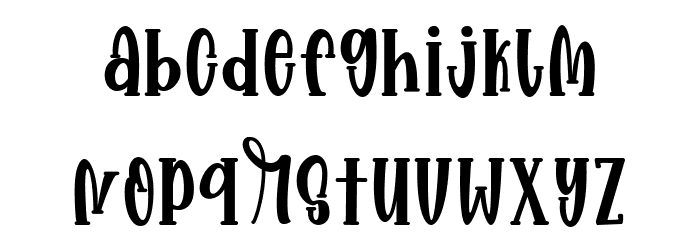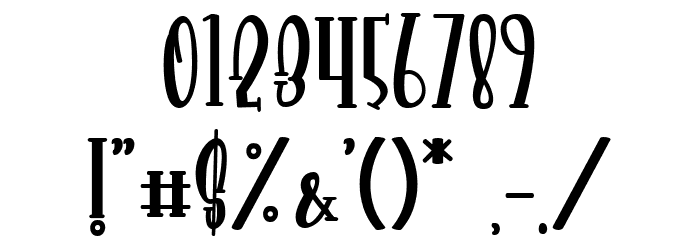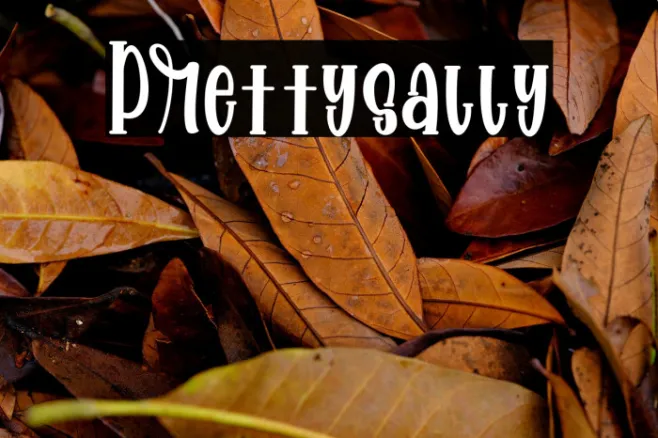
Prettysally Font
This font features a playful and whimsical style with a unique blend of curves and straight lines. The uppercase letters are tall and slender, with a slight slant that adds a sense of movement. The lowercase letters maintain a consistent style, with rounded edges and a friendly appearance. Numbers and special characters are designed to match the overall playful theme, making them suitable for creative projects. The font's distinctive character shapes and moderate spacing make it ideal for eye-catching designs.
A playful and whimsical font with tall, slender uppercase letters and rounded lowercase characters.
- Proposed Projects: Ideal for children's books, playful branding, party invitations, and creative posters.
- Overall Style: Playful